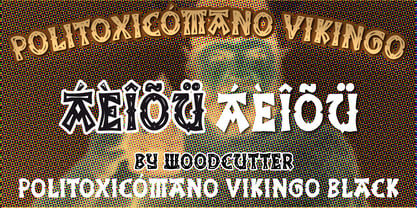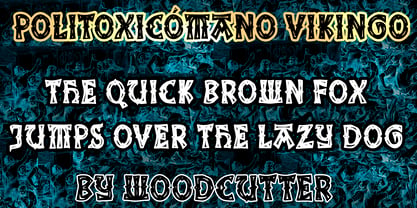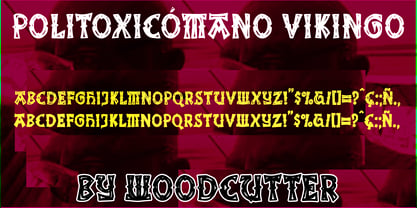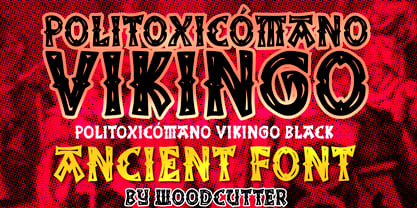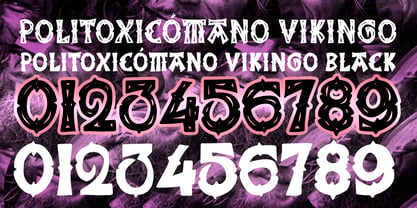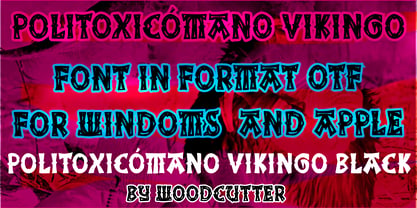
Politoxicómano Vikingo
by Woodcutter
The Politoxicómano Vikingo Font Family was designed by Jordi Manero and published by Woodcutter. Politoxicómano Vikingo contains 2 styles and family package options. More about this family
Politoxicómano Vikingo is a typeface family with an ancestral and aggressive character, deeply inspired by Celtic and runic visual traditions. Designed in uppercase with full accent support, this font builds a graphic language full of symbolism, strength, and raw intensity, as if each character had been carved into stone, wood, or metal during an ancient ritual.
Its letterforms feature angular structures, sharp cuts, and compact compositions that convey tension and solidity. The main version, Politoxicómano Vikingo, stands out for its integrated decorative elements, transforming each letter into a complex and aggressive shape. The terminals and details evoke tribal engravings, battle marks, and reinterpreted runic symbols, resulting in a powerful aesthetic rich in narrative.
In contrast, Politoxicómano Vikingo Black offers a more direct and forceful version, where the letters appear fully solid and black, removing decorative elements to maximize visual impact and readability in cleaner compositions.
This type family is ideal for projects exploring mythological, epic, or tribal themes—branding, music, posters, illustration, or editorial design. Politoxicómano Vikingo is not just a typeface, but a visual statement that bridges ancient heritage with raw, contemporary energy.